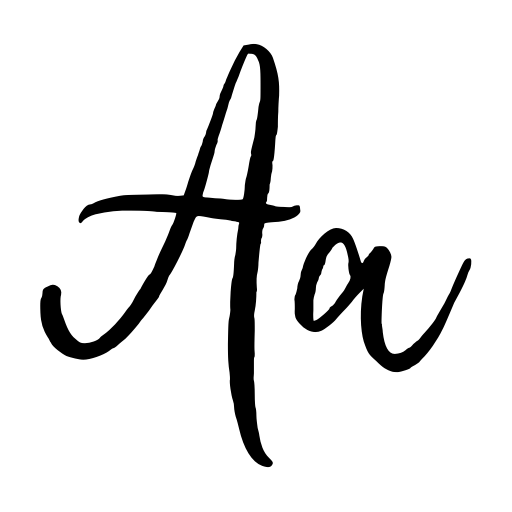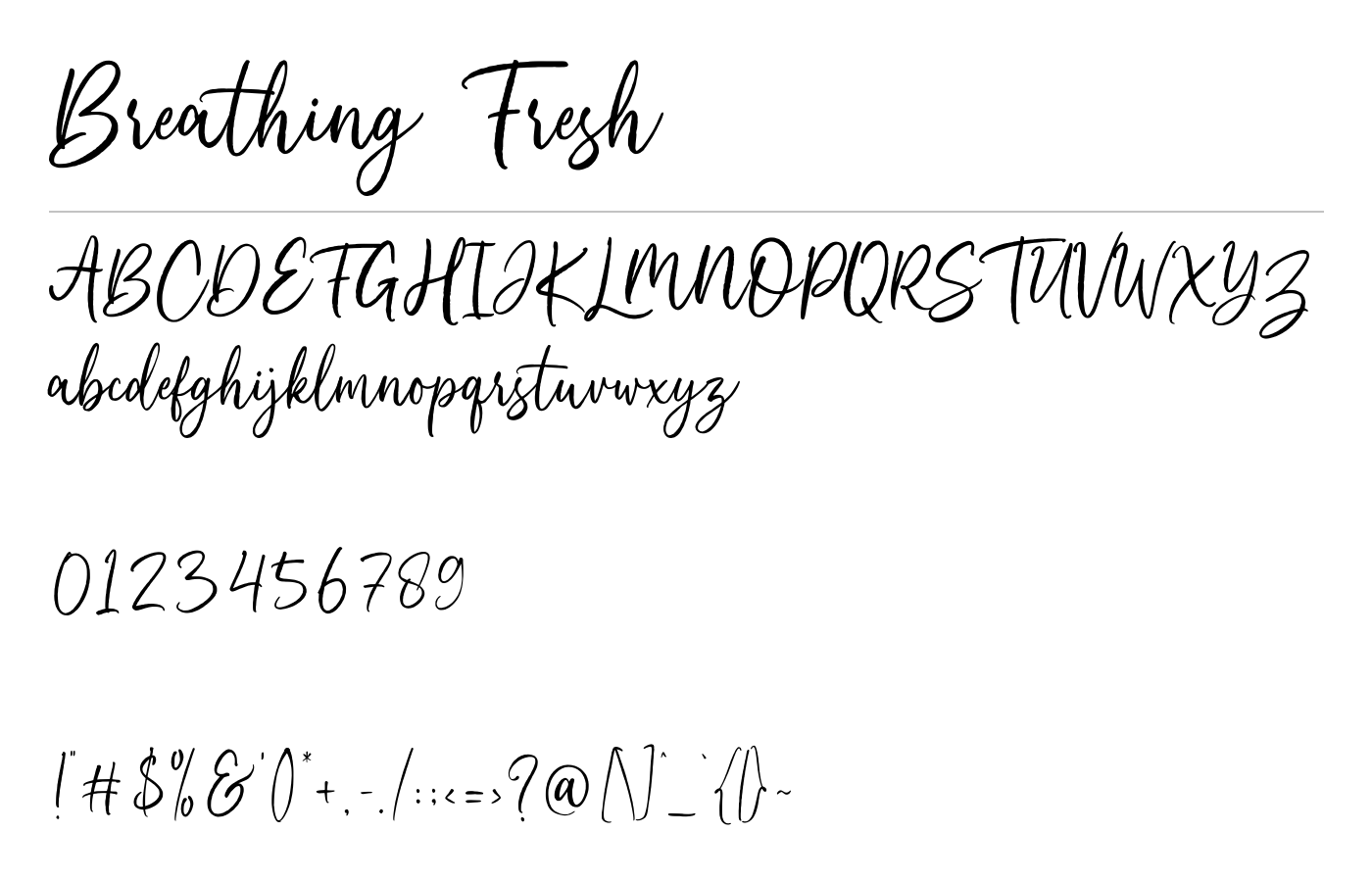
Breathing Fresh is a lively, handwritten script font characterized by its fluid, casual strokes and moderate weight, giving it a natural and approachable feel. Its tall x-height and slightly condensed letterforms offer good readability while maintaining an elegant, personal touch, making it ideal for creative branding, invitations, and lifestyle projects where a warm, friendly vibe is desired. This font works beautifully for logos and headlines that seek to convey freshness and authenticity with a handwritten charm.
Breathing Fresh Font
About Breathing Fresh Font
| Font family | Breathing Fresh Font |
| Designer | Faisal Tanjung |